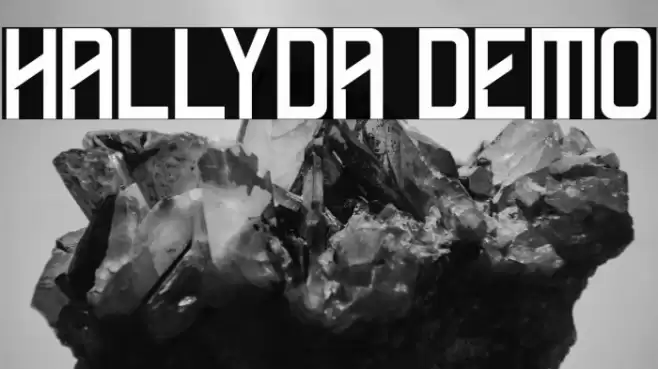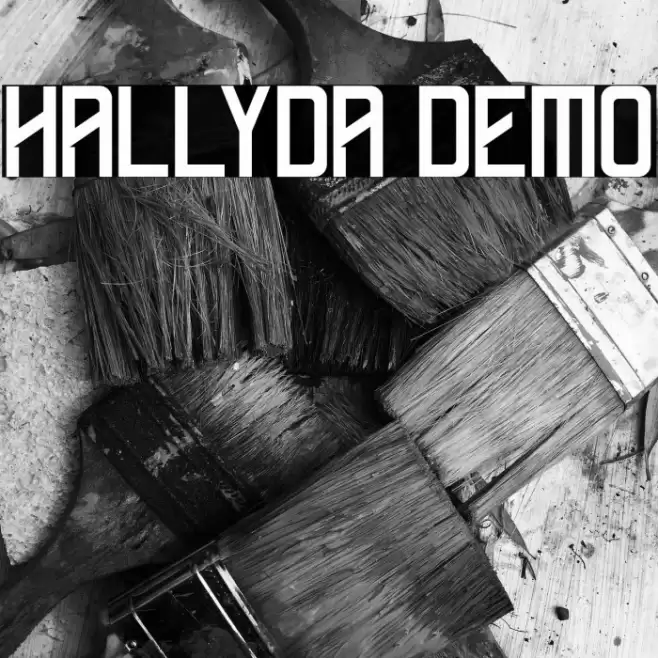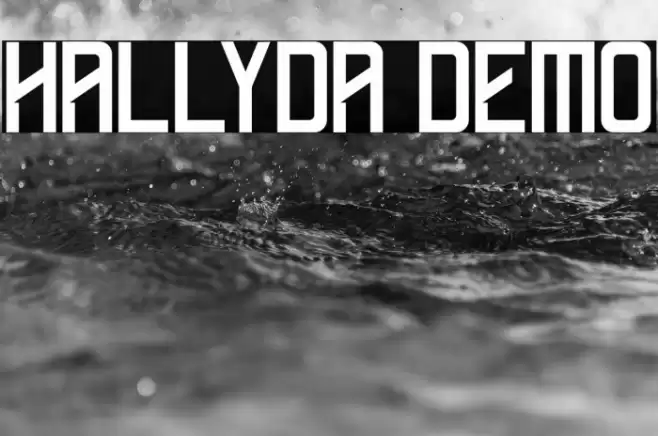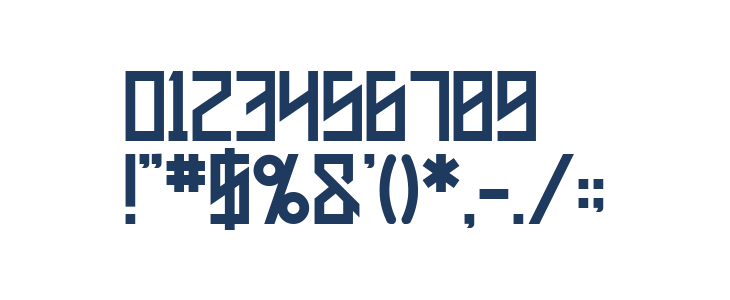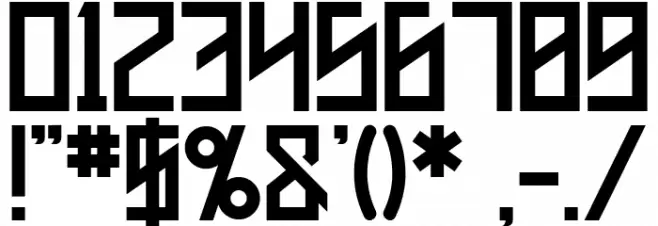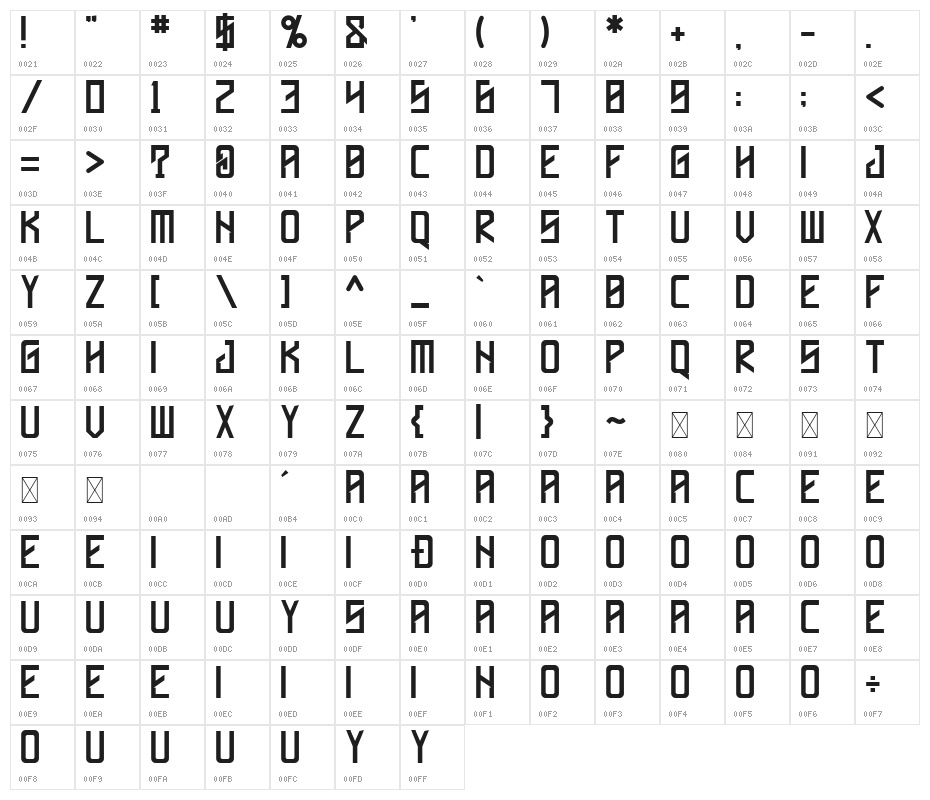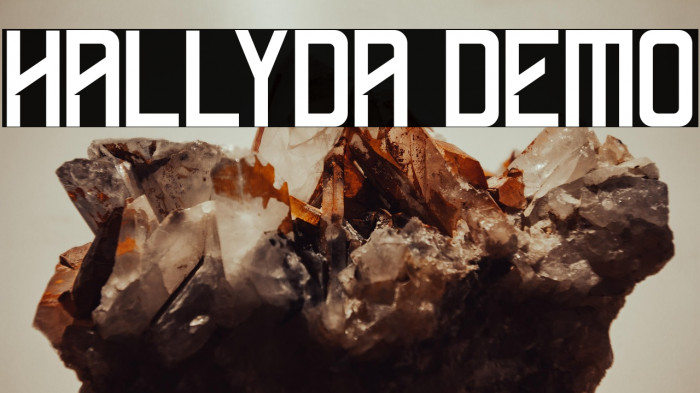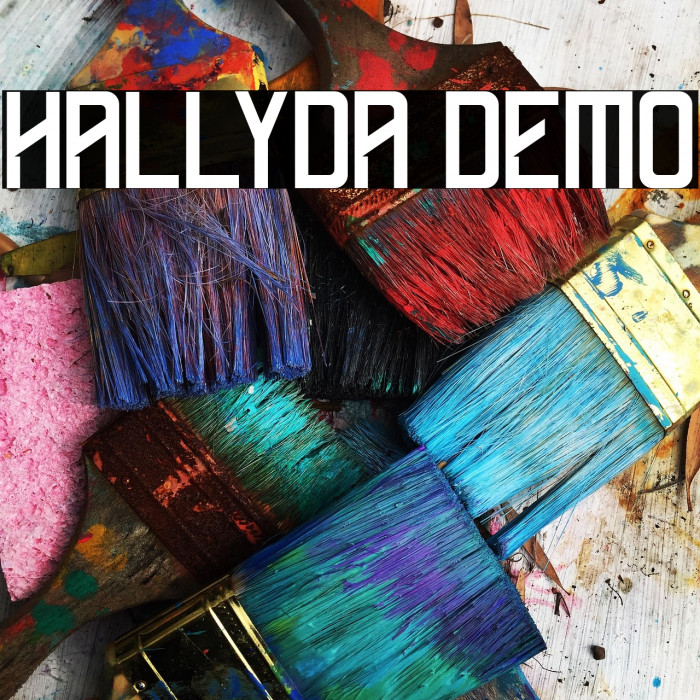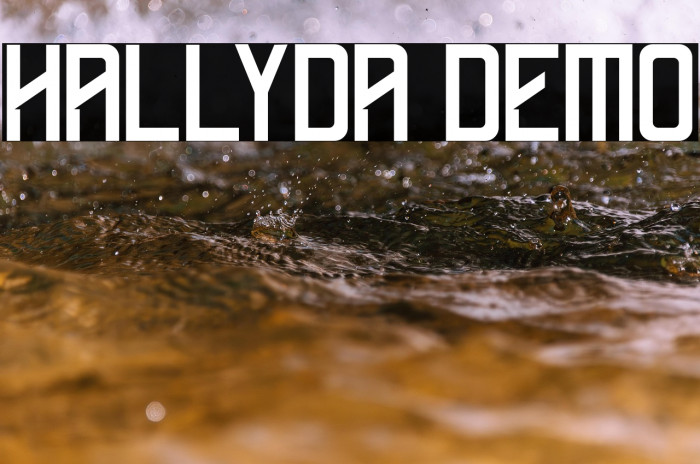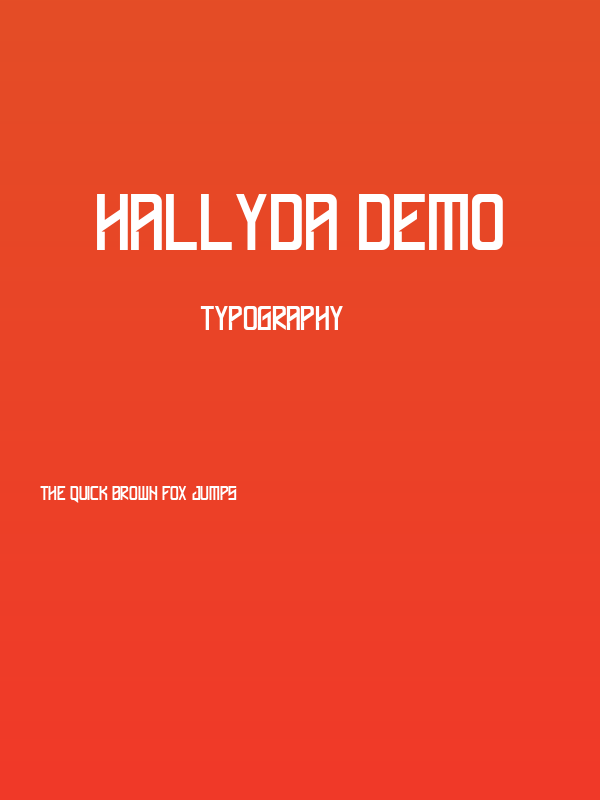
Hallyda Demo Font
Hallyda Demo Description
This font features a bold, geometric design with sharp angles and a futuristic aesthetic. The characters are constructed with straight lines and pointed edges, giving it a distinct and edgy appearance. The uppercase letters are particularly striking, with unique cuts and angles that create a sense of movement and dynamism. The numerals and special characters maintain this angular style, ensuring consistency throughout the typeface. This font's boldness and unique design make it stand out, ideal for projects that require a modern and impactful look.
A bold, geometric font with sharp angles and a futuristic style from Regular fonts.
- Proposed Projects: Ideal for branding, posters, album covers, and any project needing a modern, edgy look.